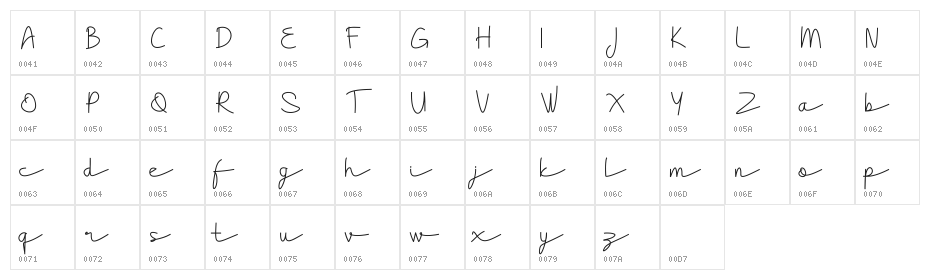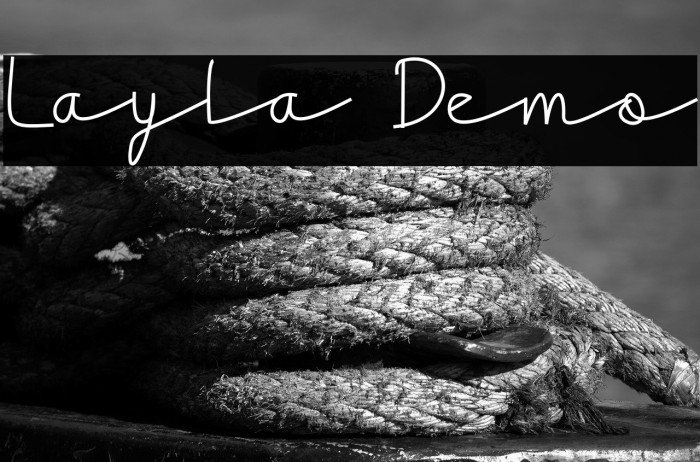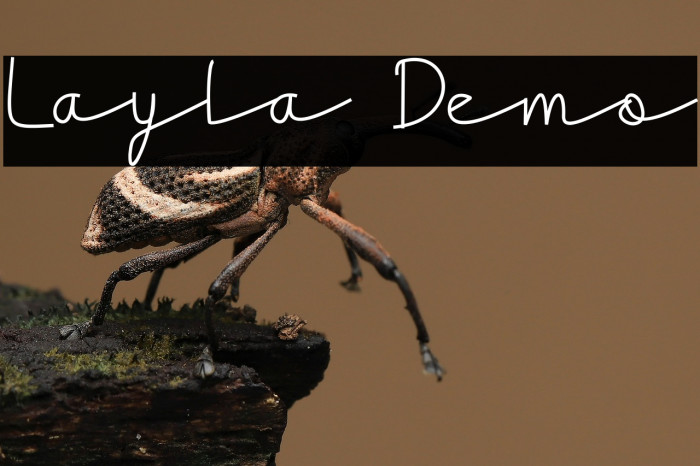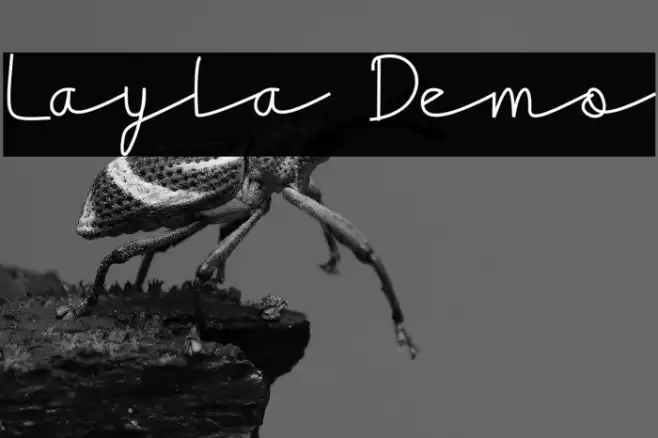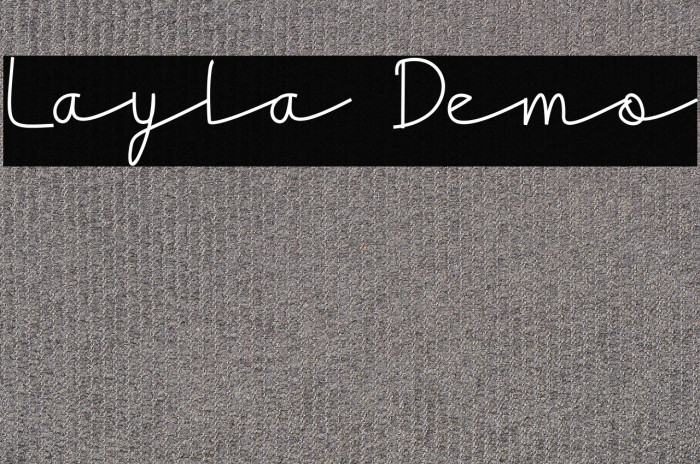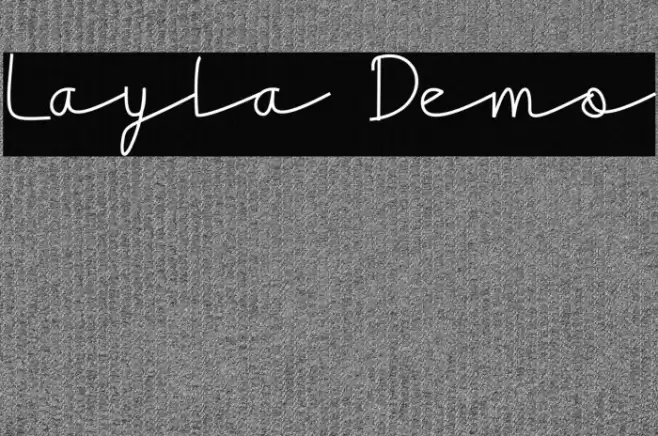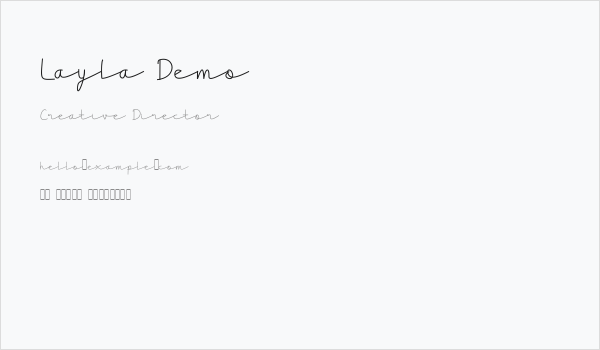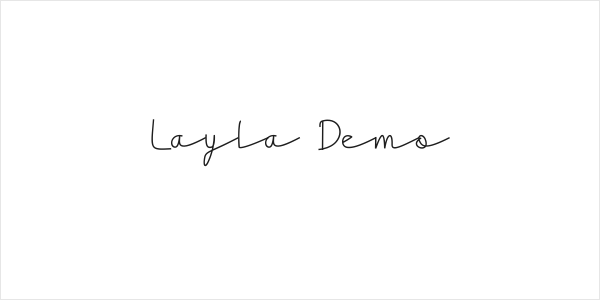
Layla Demo Font
Layla Demo Description
This font features a playful and casual handwritten style, characterized by its loose, flowing strokes and slightly irregular letterforms. The uppercase letters are bold and expressive, with a whimsical touch that adds personality. The lowercase letters maintain a consistent flow, enhancing the font's informal and approachable feel. The numbers and special characters are crafted to match the overall style, ensuring a cohesive look across all text elements. This font's unique charm makes it suitable for projects that require a personal and friendly touch.
| Proposed Projects | Ideal for greeting cards, invitations, personal branding, and creative projects that require a friendly and informal tone. |